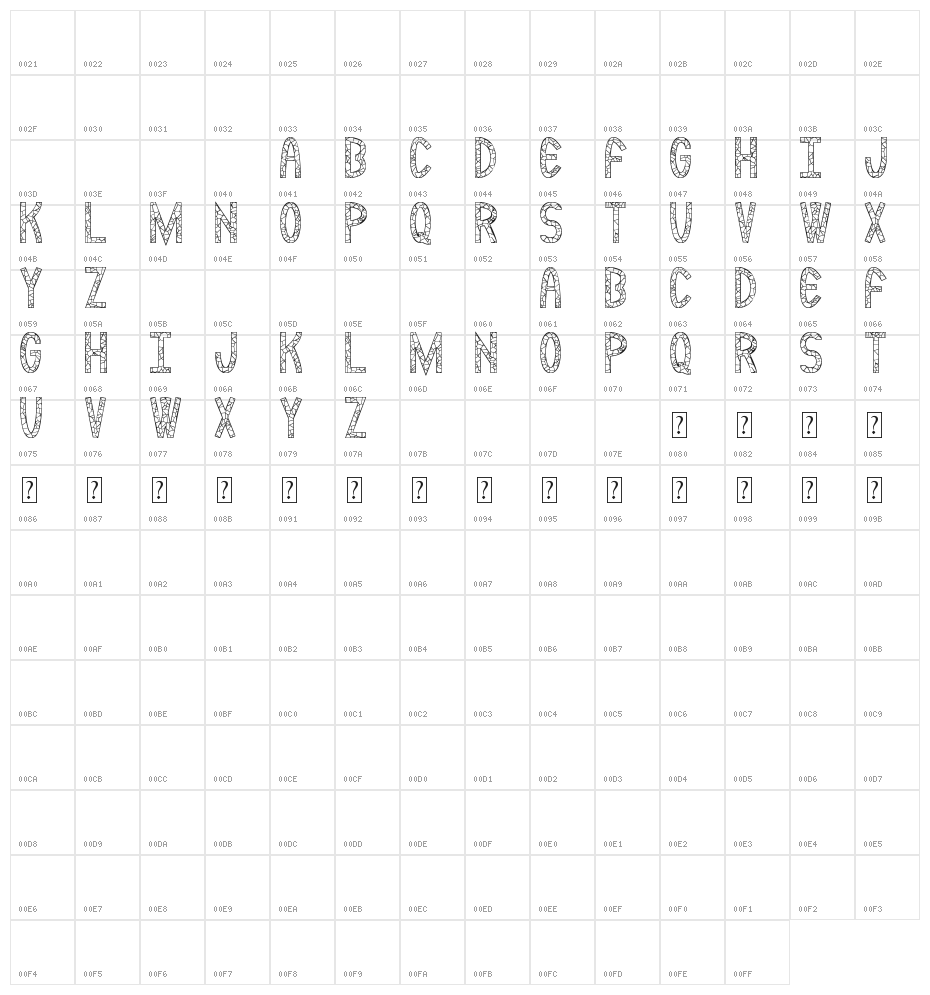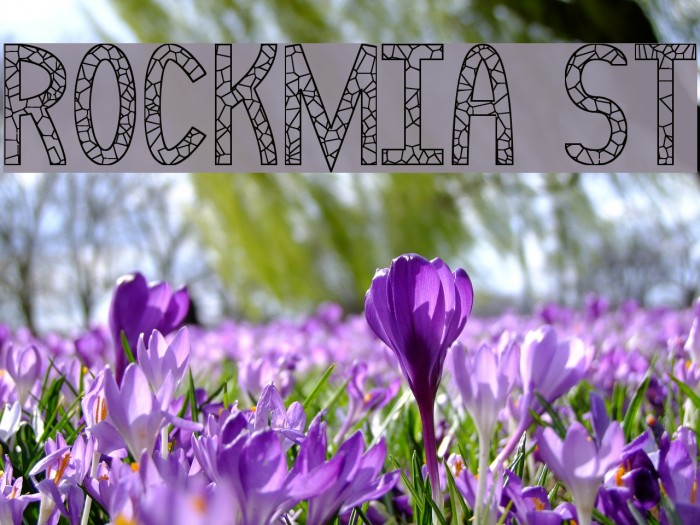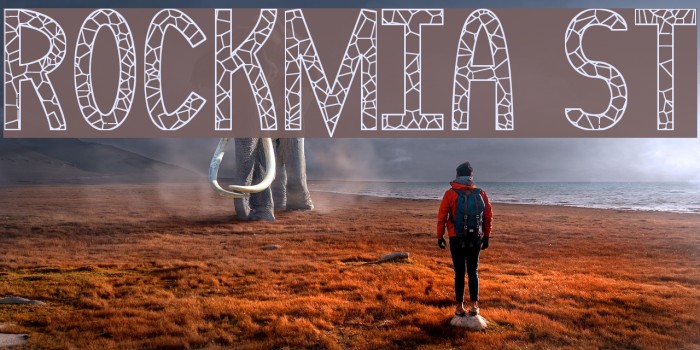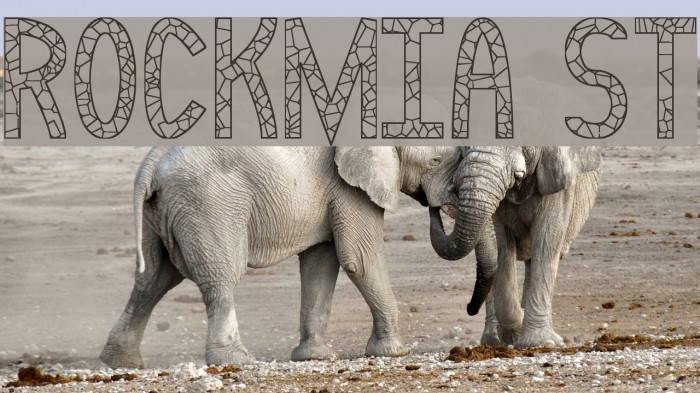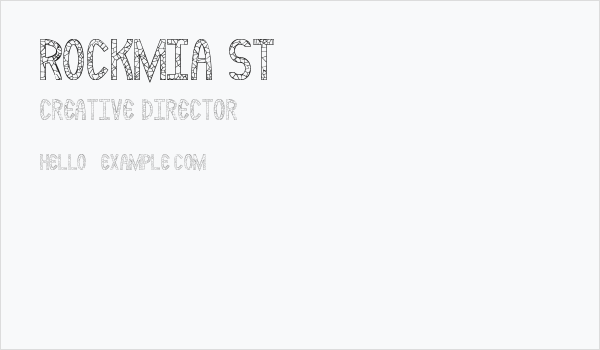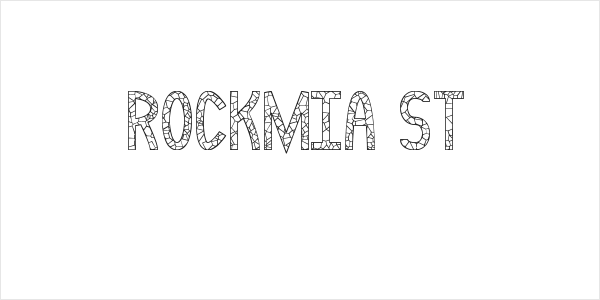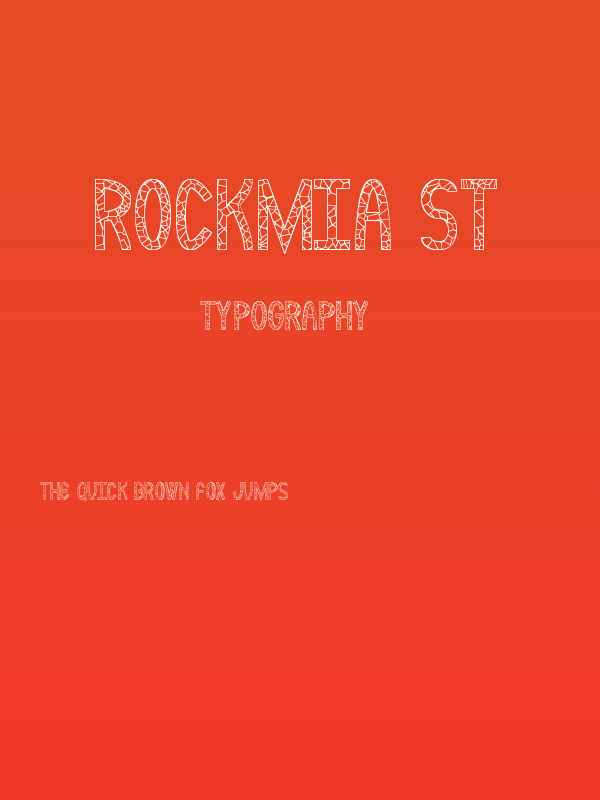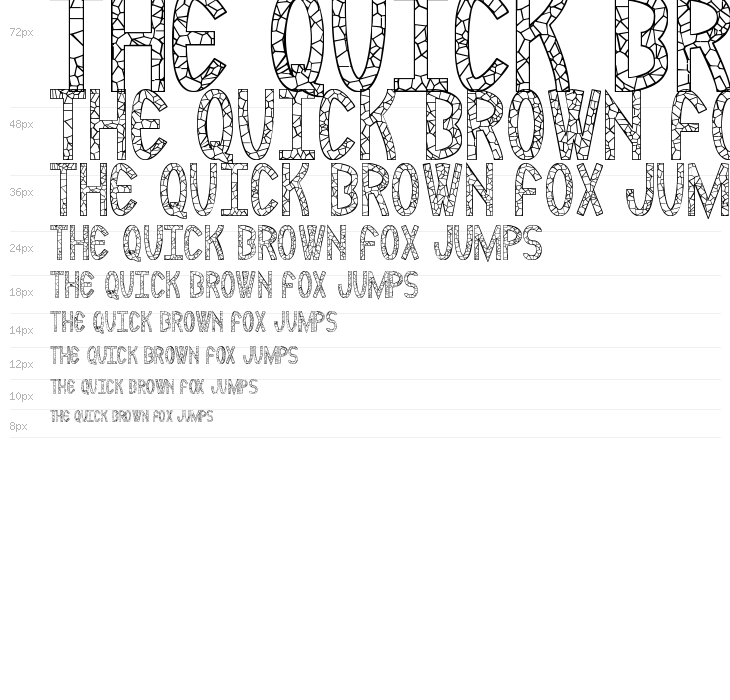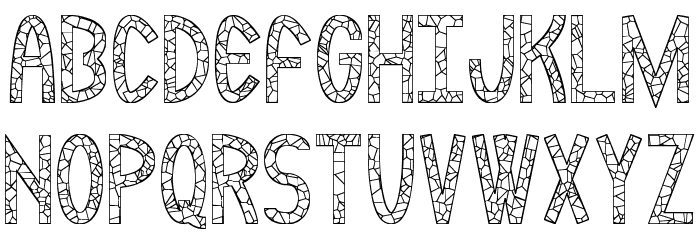
Rockmia St Font
Rockmia St Description
This font features a unique mosaic pattern within each character, giving it a textured and artistic appearance. The uppercase letters are bold and structured, with each character filled with a geometric, stone-like design. The font maintains a consistent width and height across all characters, ensuring uniformity. The intricate detailing within each letter makes it stand out, offering a decorative and eye-catching style. This font is ideal for projects that require a creative and artistic touch, such as posters, logos, or any design that seeks to incorporate a sense of craftsmanship and uniqueness.
| Use Case | Logos, Posters, Decorative Text |
| Proposed Projects | Ideal for artistic posters, creative logos, and decorative design projects. |